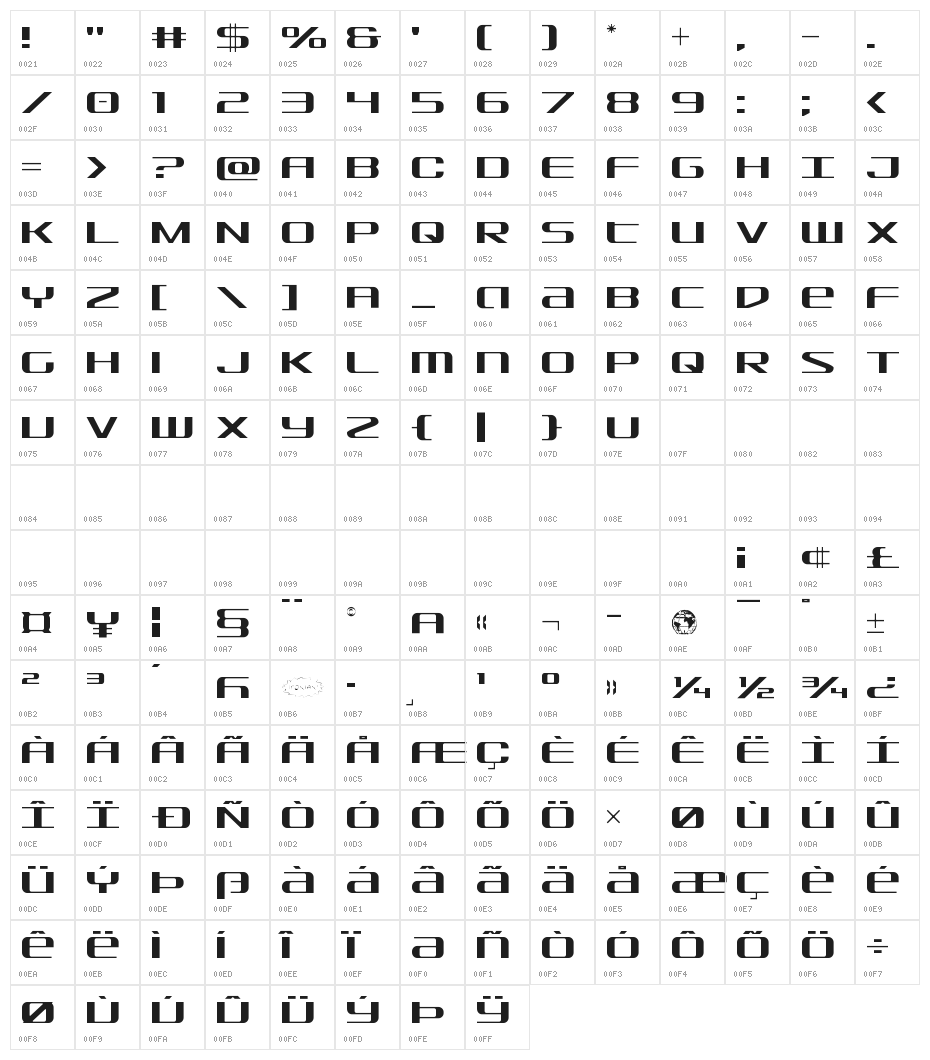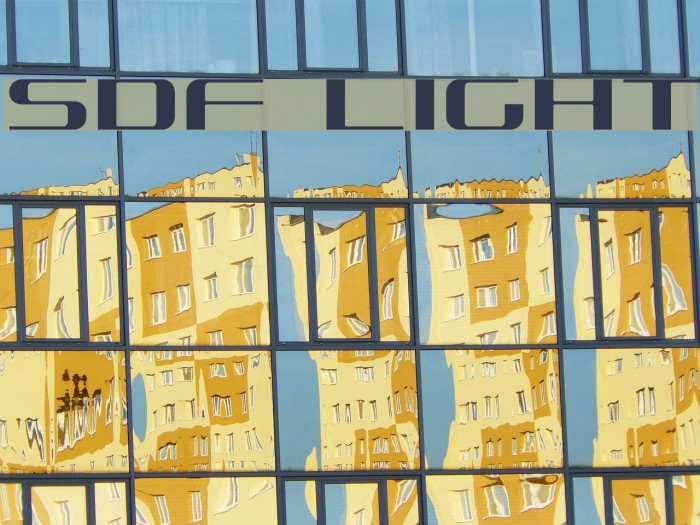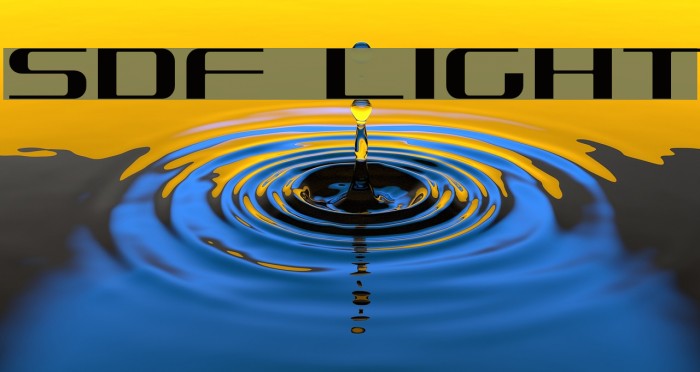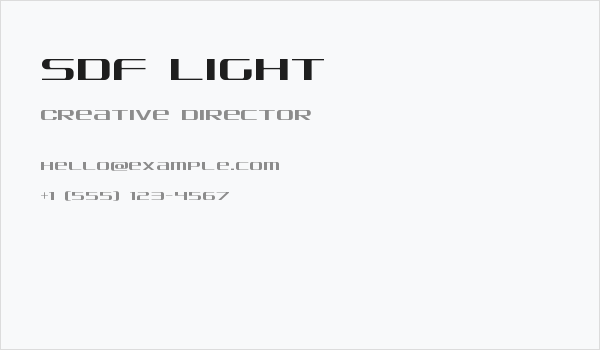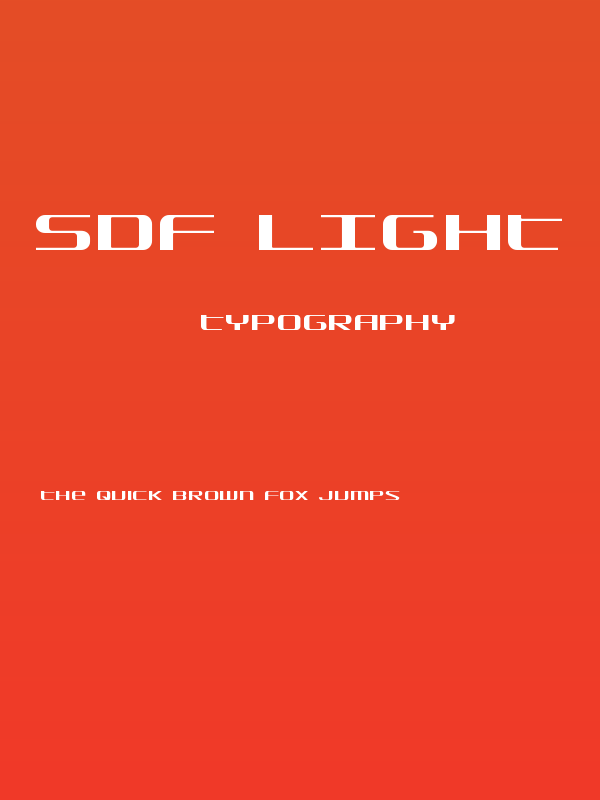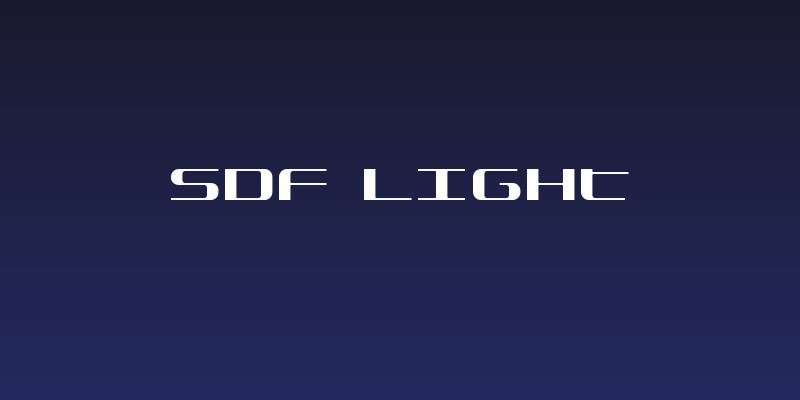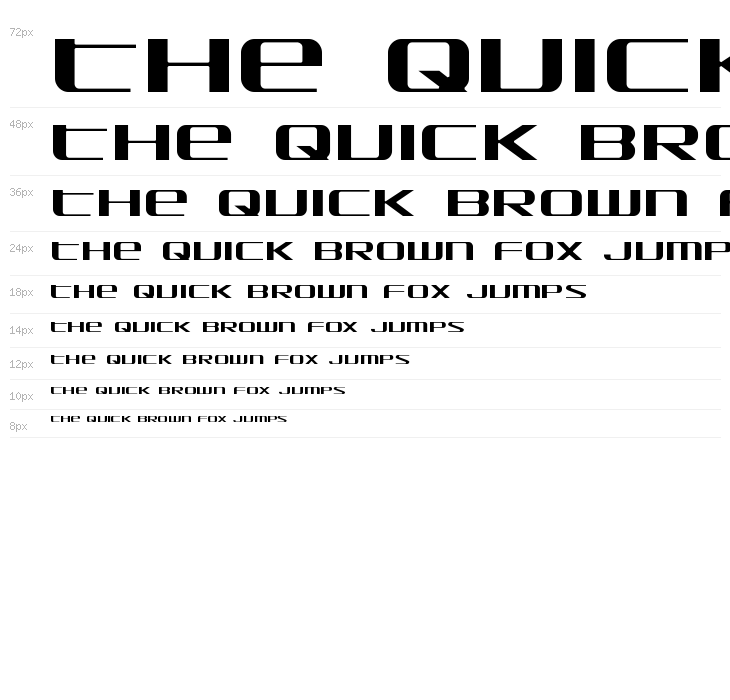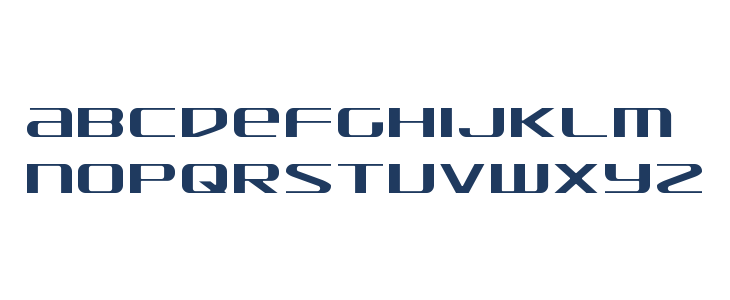
SDF Light Font
SDF Light Description
This font features a futuristic and geometric design with sharp angles and clean lines. The uppercase and lowercase letters maintain a consistent style, with distinct cutouts and a modern aesthetic. The numerals are bold and align well with the overall design, ensuring readability while maintaining a unique appearance. Special characters are designed to complement the letters and numbers, adding to the cohesive look. The font's structure is both innovative and functional, making it suitable for various creative applications.
| Proposed Projects | Ideal for technology branding, sci-fi themed projects, modern posters, and innovative product packaging. |